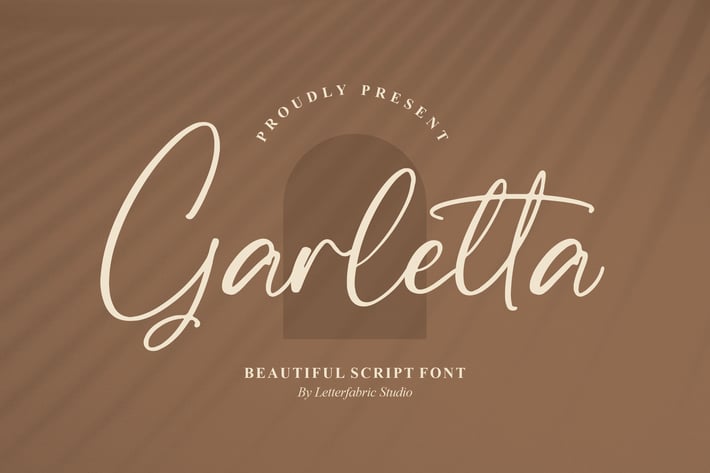
Garletta Script Font
Garletta Script Font embodies timeless elegance with a smooth handwritten flow. Its graceful strokes bring sophistication and warmth, making it the ideal typeface for both modern and classic design projects.
+ Stylish handwritten script with flowing strokes
+ Uppercase, lowercase, numbers, and punctuation
+ Beautiful ligatures and alternates for creative variation
+ Smooth curves with natural handwritten aesthetics
+ Wedding invitations & greeting cards
+ Branding and logo design
+ Social media posts & quotes
+ Packaging and product labels
+ Editorials, blogs, and fashion projects
Bring elegance to every word with Garletta — where handwriting meets timeless beauty.